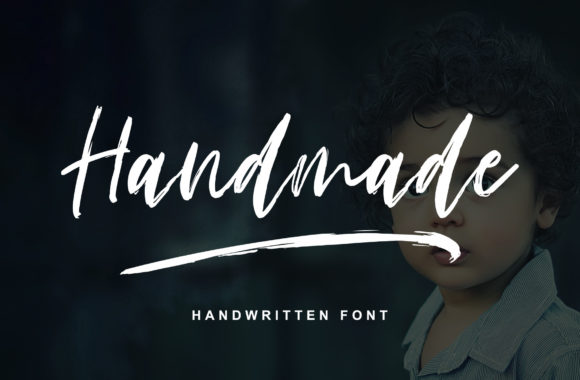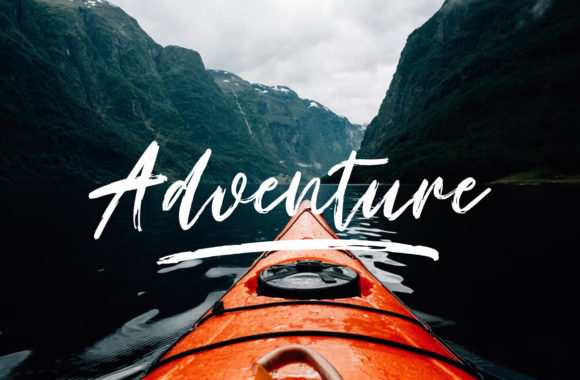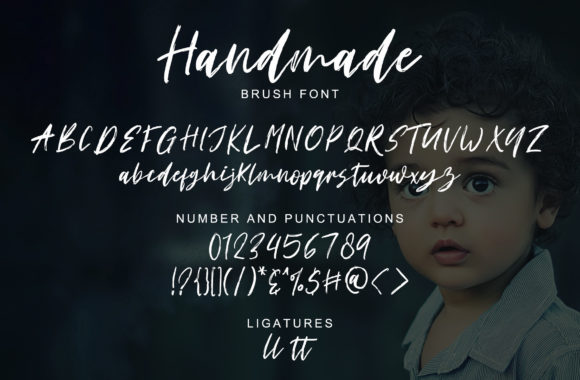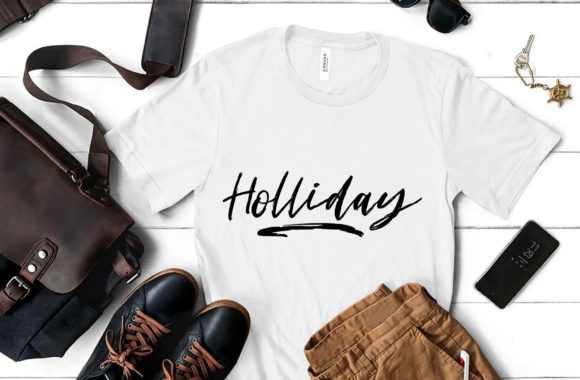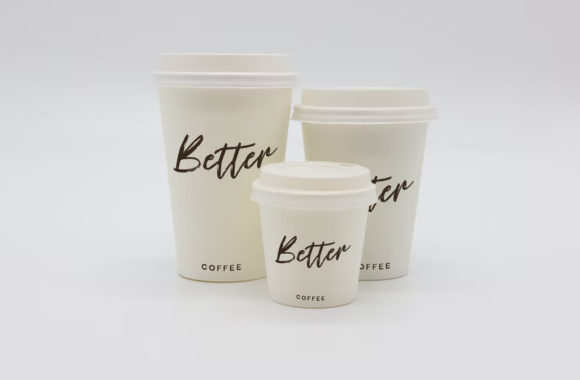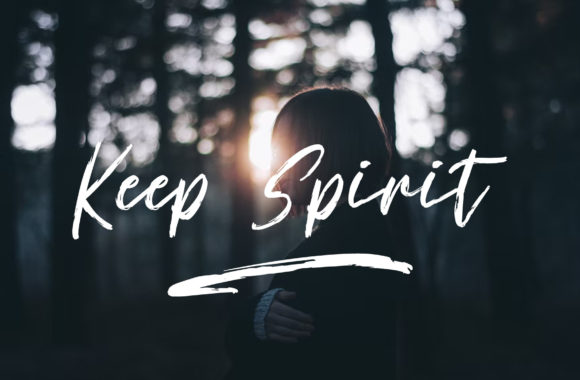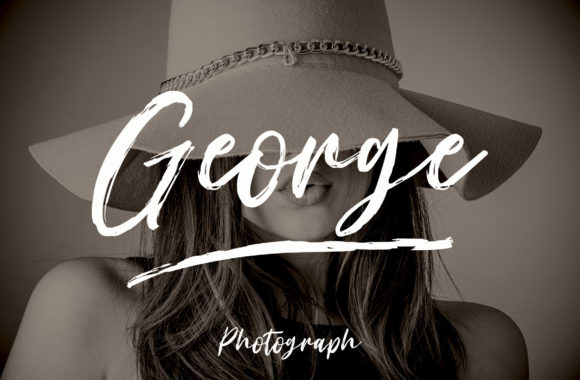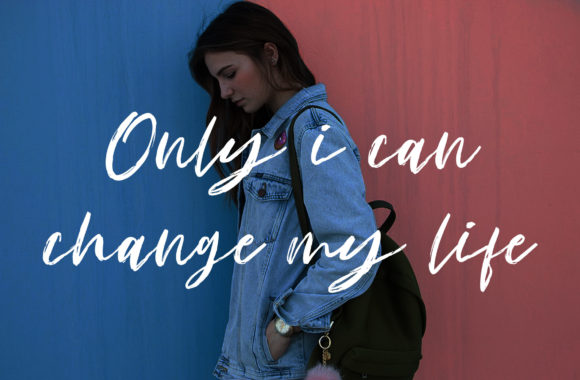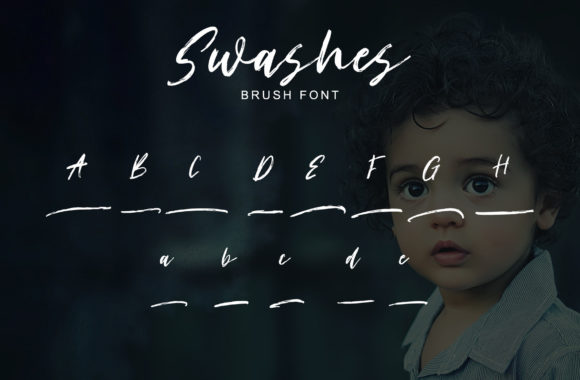
Handmade is a laid-back and contemporary script font that effortlessly captures the essence of casual elegance. Its relaxed yet stylish design makes it a perfect choice for a wide array of projects, ranging from logos and branding initiatives to labels, photography watermarks, and special events.
The fluid strokes and modern letterforms of Handmade give your designs a fresh and trendy vibe. Whether you’re crafting a logo for your business, infusing a touch of personality into product labels, or enhancing your photographs with a distinctive watermark, this font brings a unique charm to your work.
Handmade’s versatility shines through in its adaptability to various design contexts. Its informal script style adds a personalized and handcrafted feel, making your projects stand out with a contemporary flair.
For branding projects, Handmade offers a relaxed yet professional aesthetic that resonates well with modern audiences. Its approachable and approachable appearance makes it an excellent choice for businesses looking to communicate authenticity and approachability.
In label design, Handmade can lend a trendy and hip vibe to your products, making them instantly more appealing to a younger and design-savvy audience. Its ability to infuse a sense of uniqueness and personality into labels ensures that your products will catch the eye and leave a lasting impression.
When used as a photography watermark, Handmade adds a touch of subtlety and style, protecting your images while also adding a fashionable signature. Its relaxed charm complements various photography styles and genres, enhancing the overall visual experience.
For special events, Handmade’s contemporary script adds a touch of informality to invitations, announcements, and other materials. It effortlessly blends elegance with a relaxed attitude, making it a versatile choice for both traditional and modern event themes.
Incorporating Handmade into your design projects gives you access to a font that combines casual ease with trendy sophistication. Its adaptable and versatile nature ensures that it harmonizes well with a variety of design elements, making your projects truly shine with a beautiful script taste.